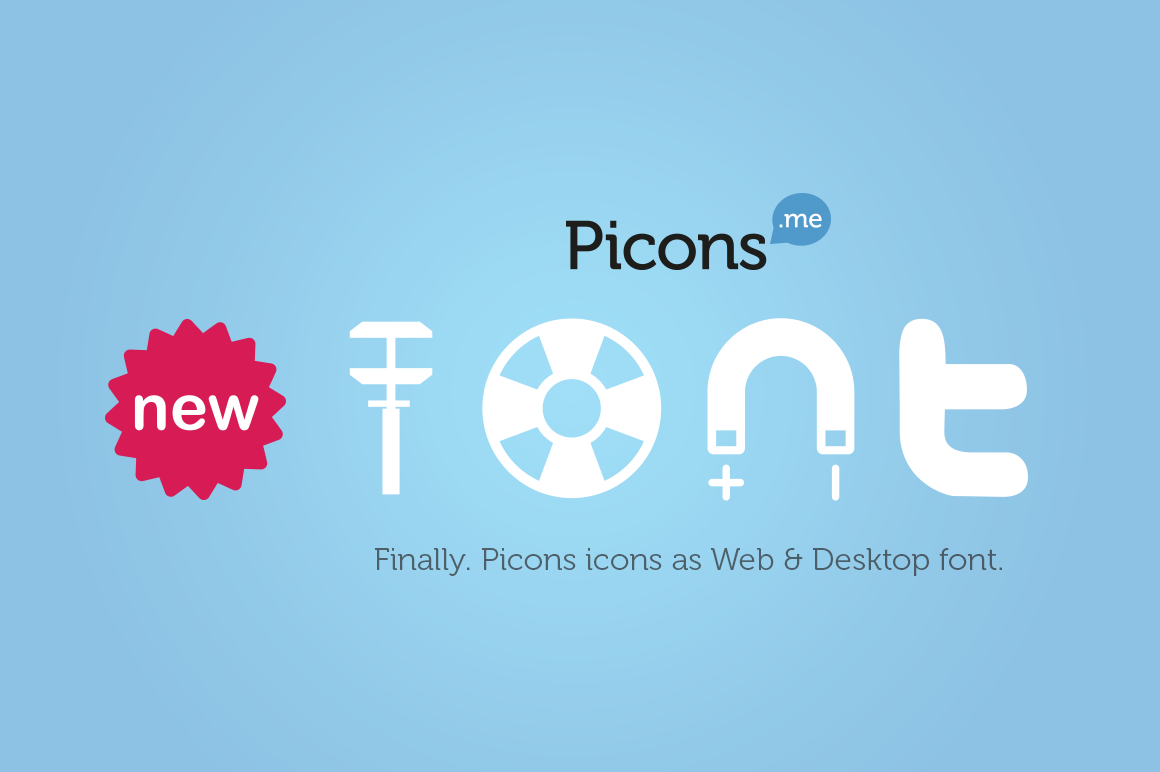
Picons Font
We hand picked 130 of our most used icons for you, and made them easy to use on your website through @font-face. The bundle includes a desktop font (compatible with Mac & PC) and all @font-face formats (EOT, WOFF, SVG & Base64 Encode CSS). We also included SVGs of every icon so you can create your own individual webfont.
Picons.me is offering premium royalty-free vector icons and pictograms. Every one of them is precisely hand-crafted, unique and high recognizable. It's the simplicity that makes them beautiful and easy to remember. Value up your web-, application-, mobile- or ofline interface with these special icons. All pictograms are designed by Morphix Design Studio, which is based in Slovenia, Europe and was established in 2001.